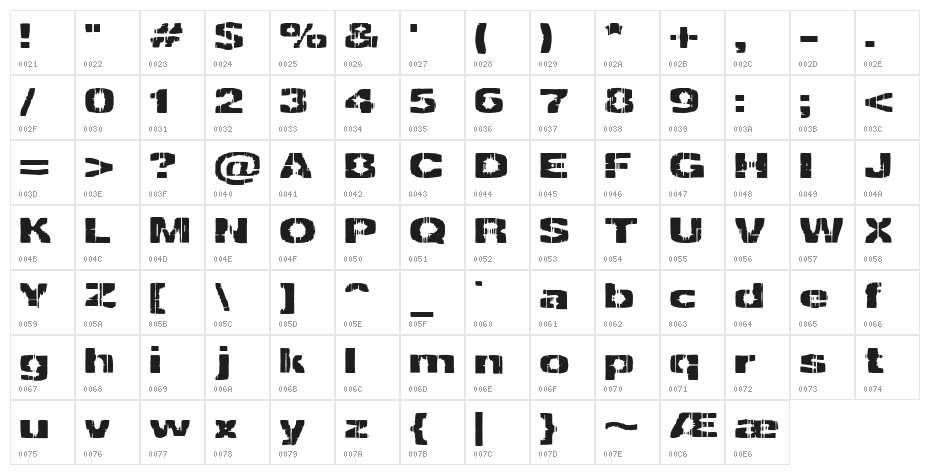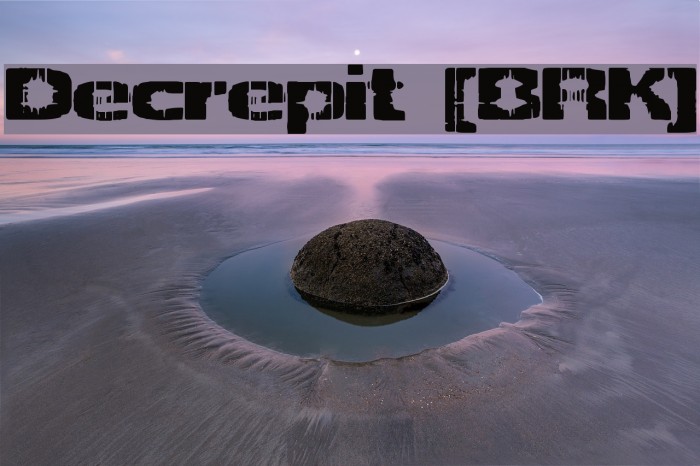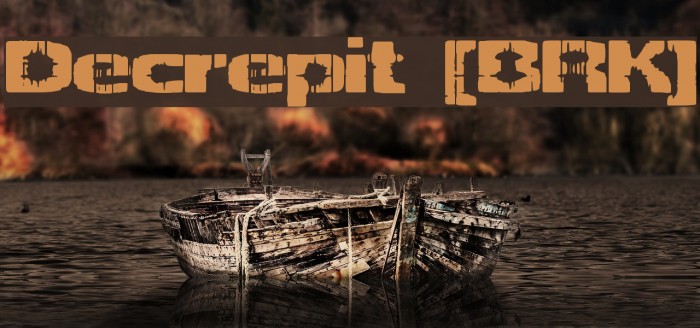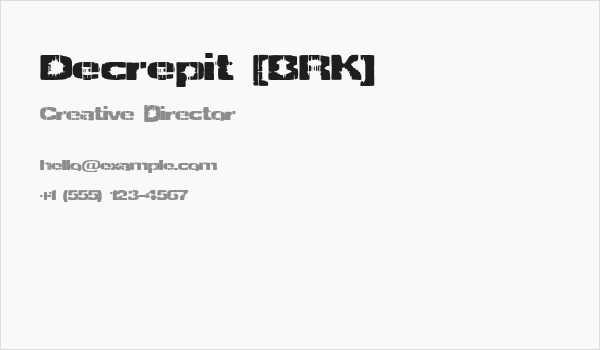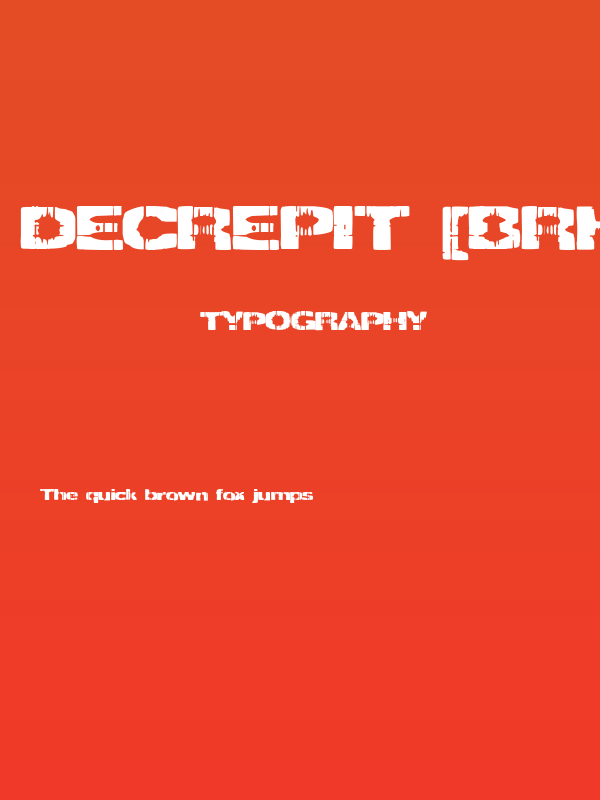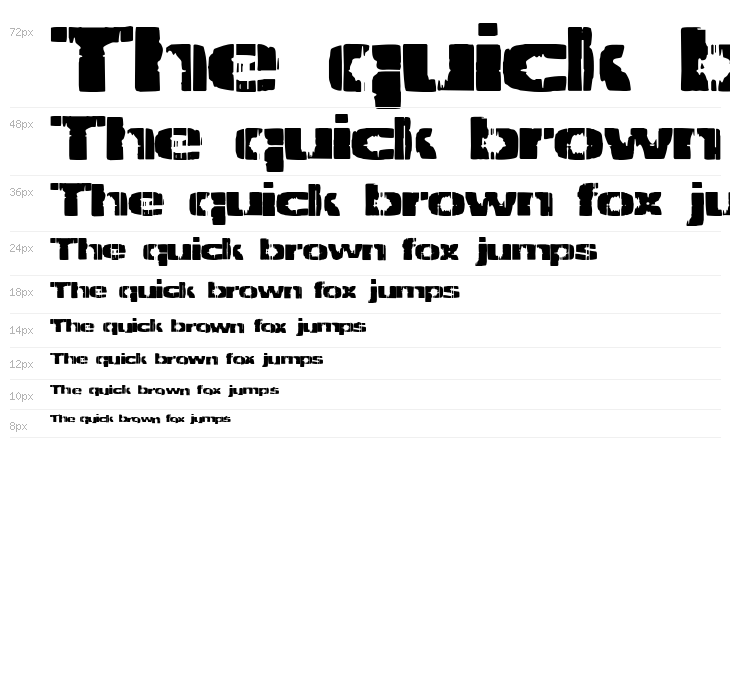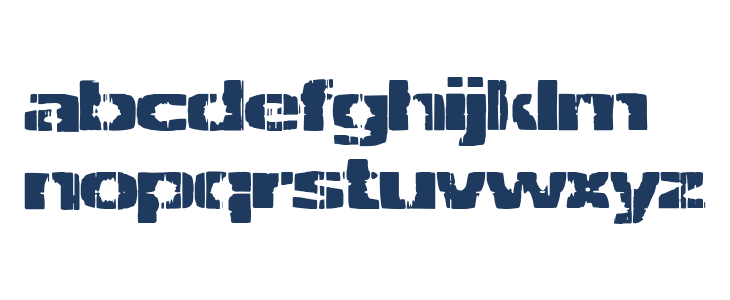
Decrepit [BRK] Font
Decrepit [BRK] Description
This font features a distressed and worn appearance, giving it a rugged and aged look. The characters are bold and heavily textured, with irregular edges that create a sense of decay and erosion. The uppercase and lowercase letters maintain a consistent style, while the numbers and special characters follow the same distressed pattern. This font's unique design makes it stand out, offering a gritty and raw aesthetic that can add character to any project.
| Proposed Projects | Ideal for projects requiring a vintage or grunge aesthetic, such as posters, album covers, or themed event invitations. |